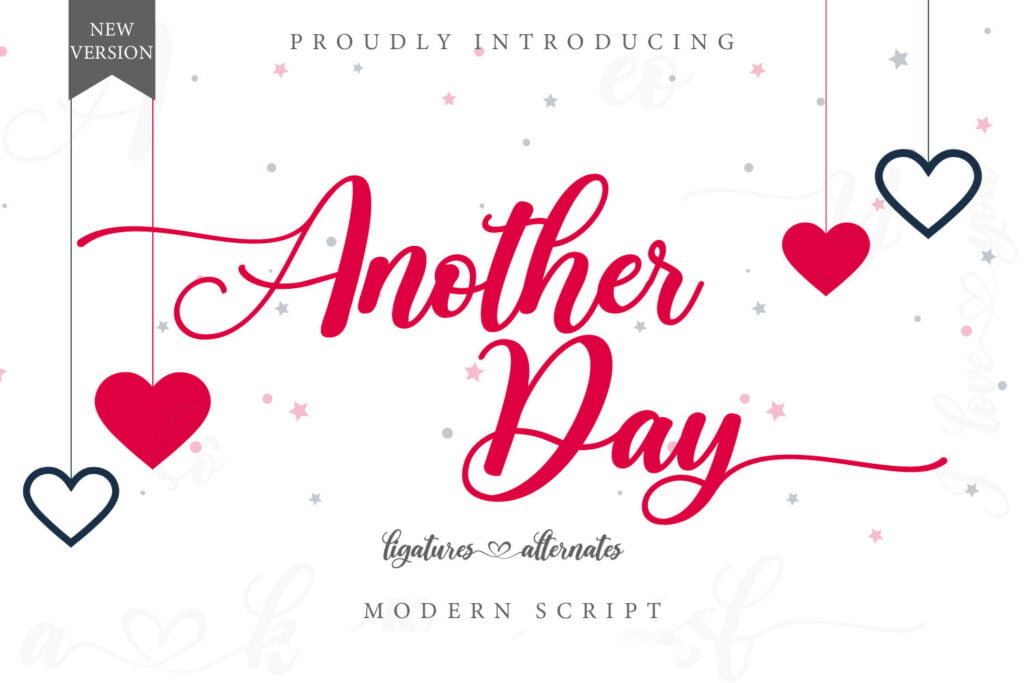
Another Day Font
Another Day Font is a romantic and sweet calligraphy script typeface with characters that dance along the baseline. It will add a luxury spark to any design project that you wish to create!
Another Day Calligraphy Script Font